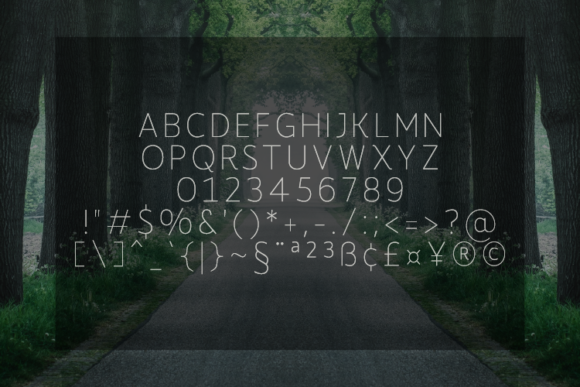
Introduction to Juanview Font
Juanview is a stunning and modern sans serif font.
With its neat and beautiful arrangement of letters, this typeface will look outstanding in both formal and non-formal designs .